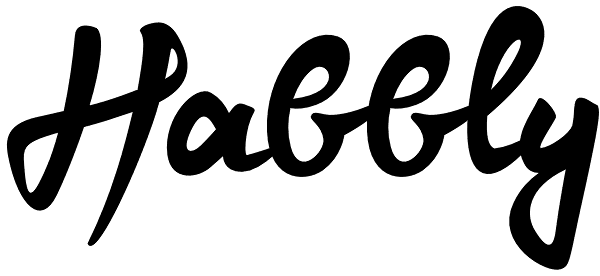
Habbly
Habbly is a handwritten brush pen font with smooth ligatures and alternates which makes it look more realistic and natural. The font has a slight bold feeling. In order to get the most out of this typeface be sure to use a program that has opentype...